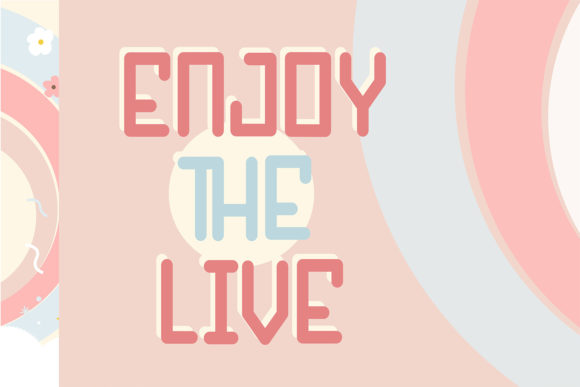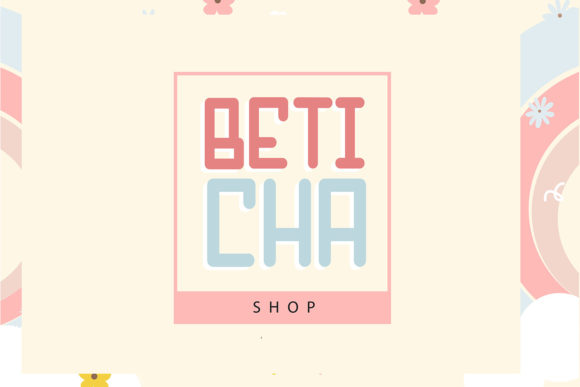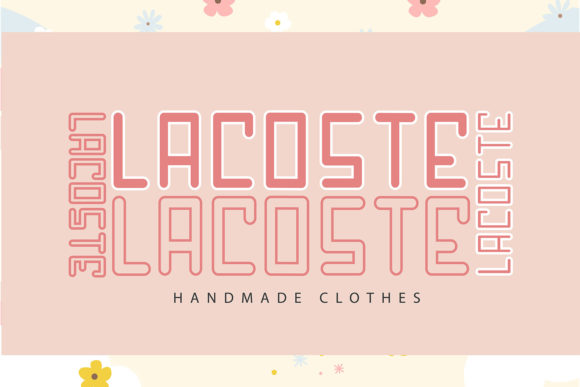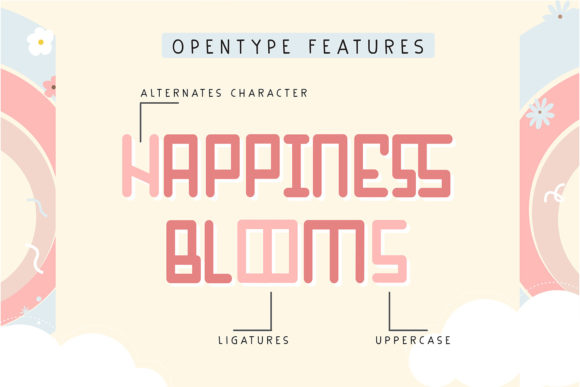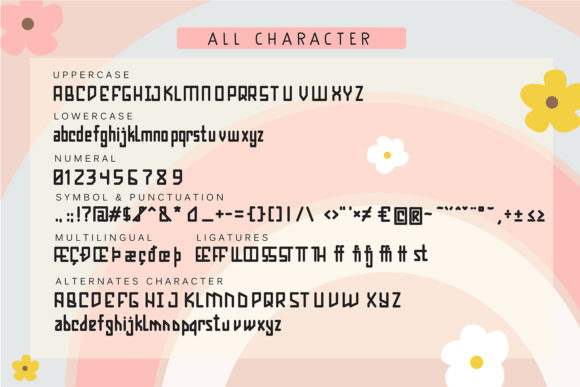
Obstacle Park Font
About Obstacle Park Font
Obstacle Park is a cute and playful handwritten font. It is PUA encoded which means you can access all of the glyphs and swashes with ease!